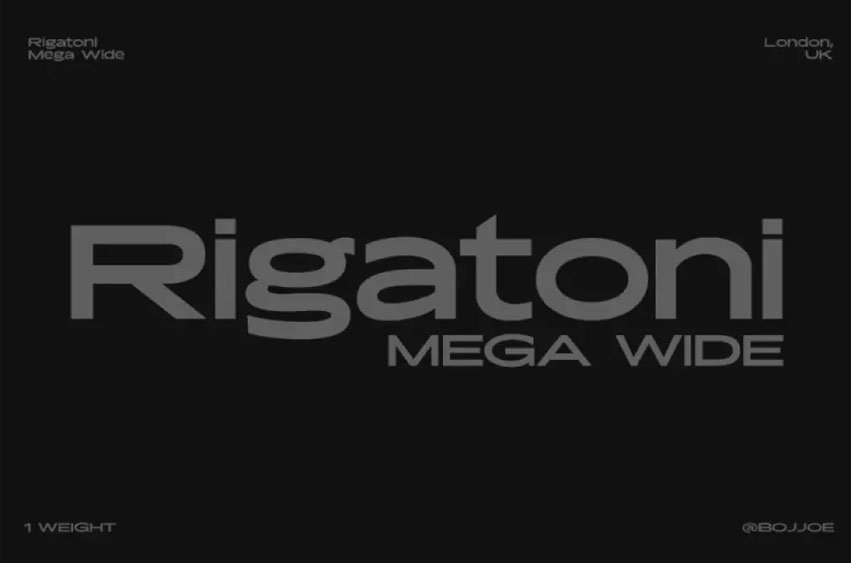
Rigatoni Font
Rigatoni Font can be described as an extended display in Grotesk with a sans serif font that creates an aggressive style in all caps, balanced out by its soothing lowercase fonts. Although designed specifically for web pages and posters, it can easily adapt to many settings and applications.
The heavy weight of characters is balanced with an alternative set of punctuation marks and symbols for an easier reading experience, creating a relaxed ambience in this text.